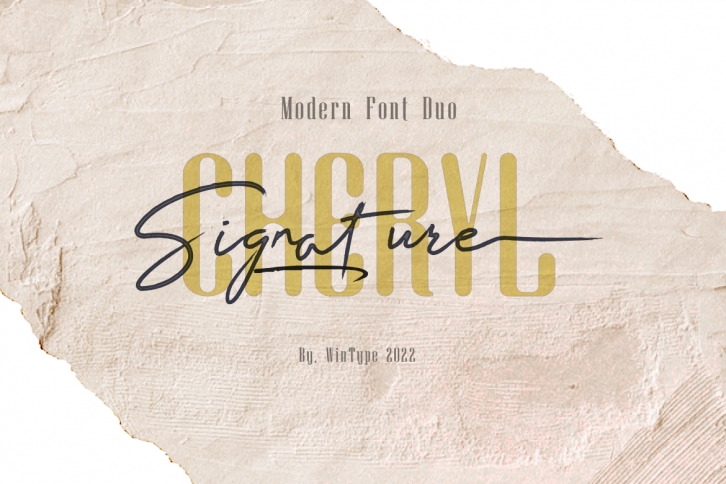
CHERYL Signature Modern Font Duo: An elegant serif typeface paired with a casual handwritten script. With its modern and minimal look, CHERYL Signature Font Duo brings a luxurious and clean style to websites, modern logos, branding identity, social media quotes, wedding stationery, and whatever your heart dreams up!